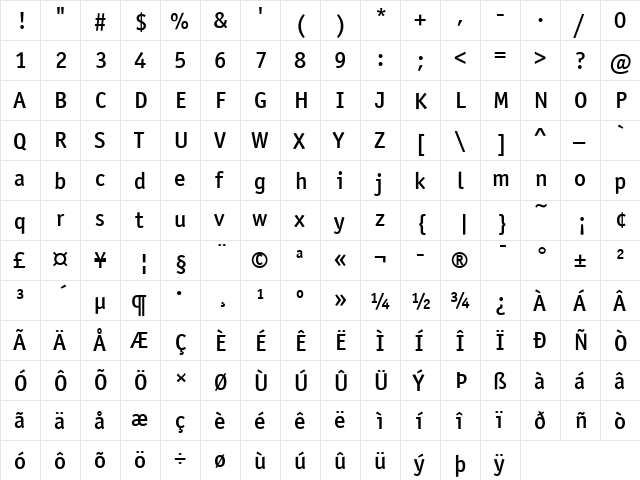
OfficinaSanITC Medium
Design Context for OfficinaSanITC Typeface
OfficinaSanITC is a composed and adaptable typeface that performs quietly and consistently across a wide range of design contexts.